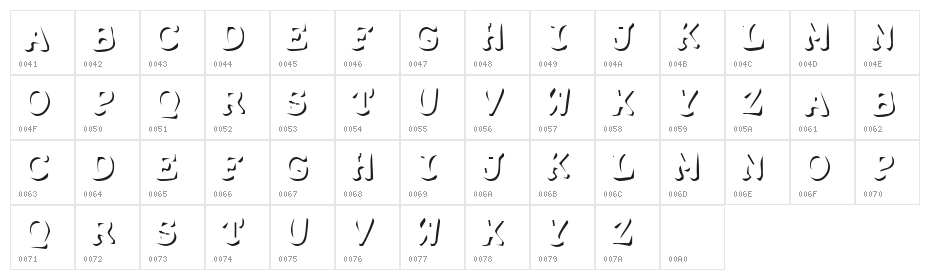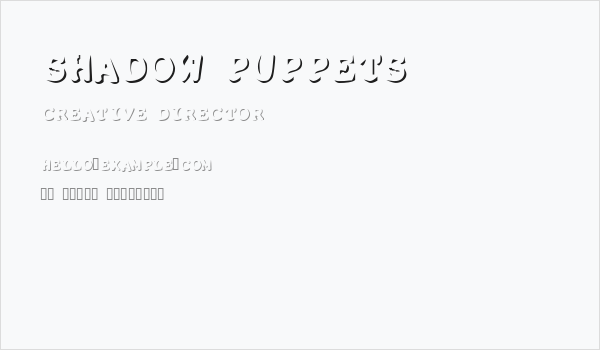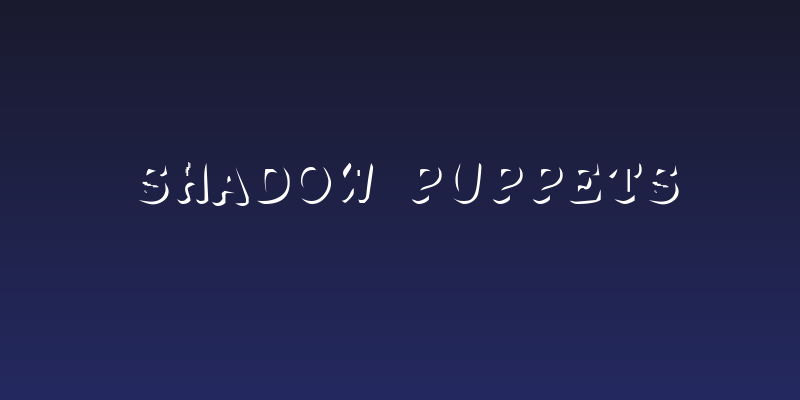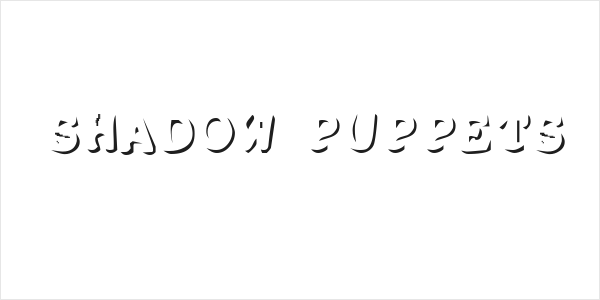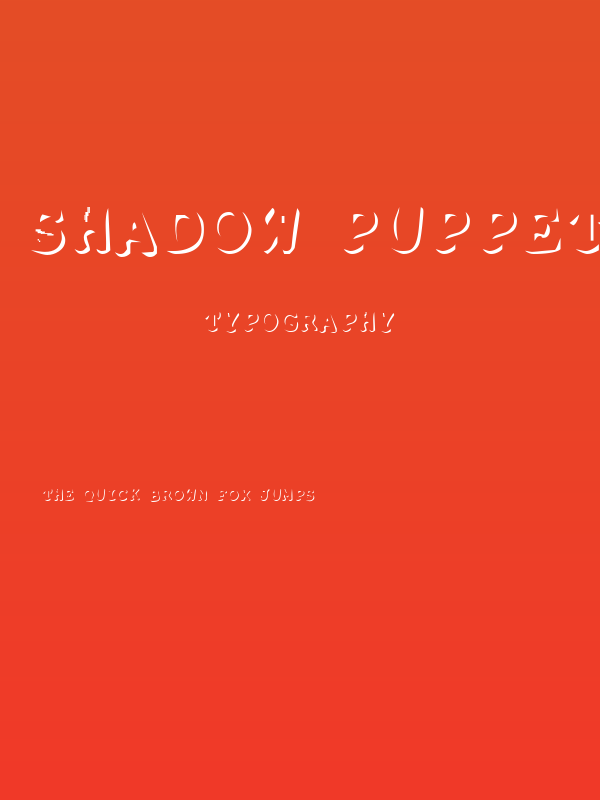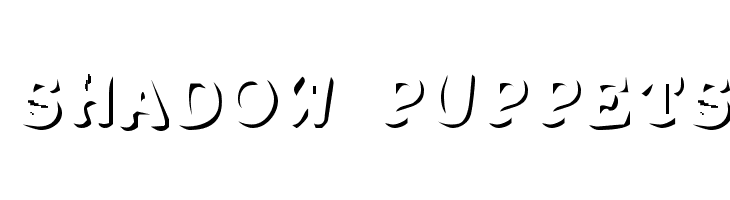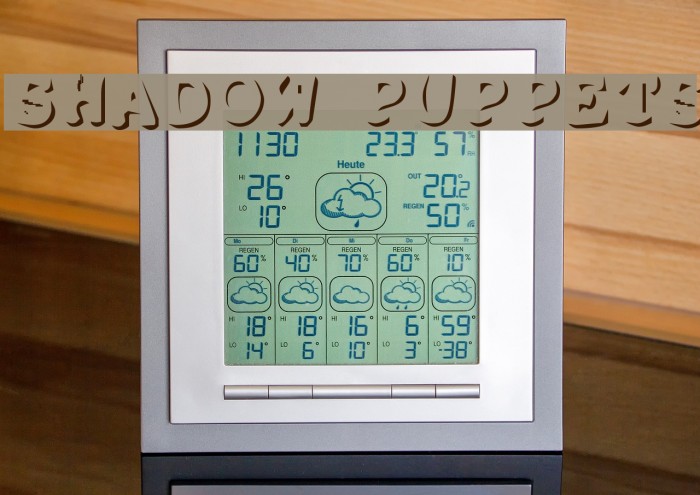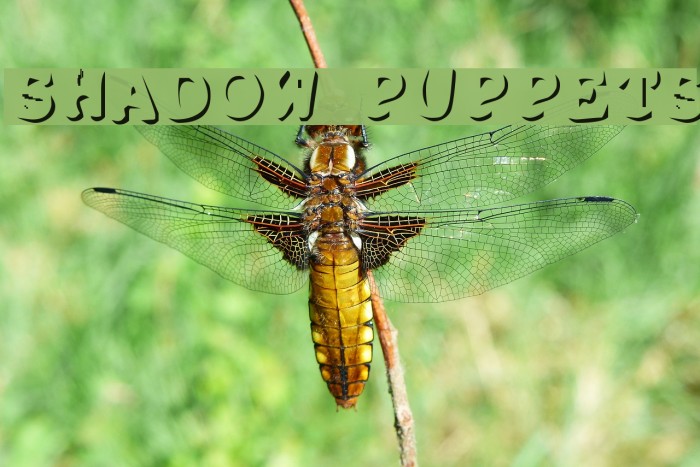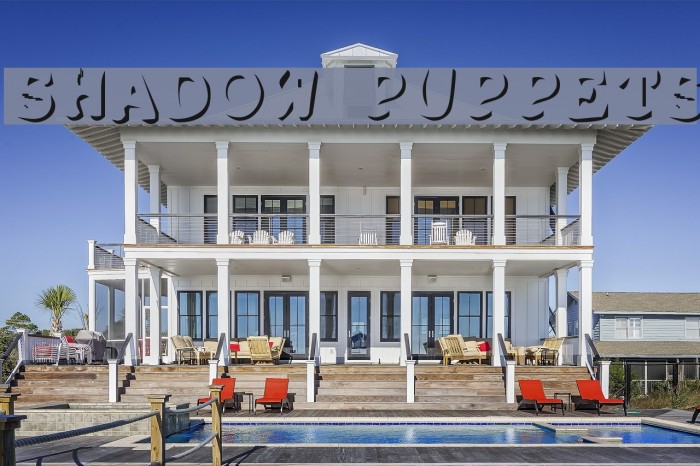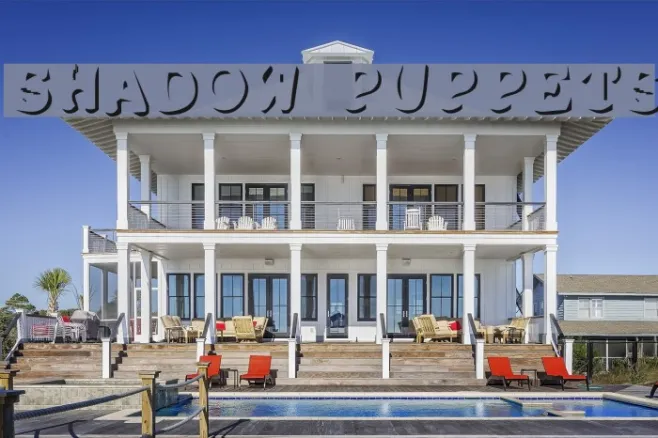
Shadow Puppets Font
Shadow Puppets Description
This font features a unique shadow effect that gives each character a three-dimensional appearance. The letters are bold and have a playful, artistic style, making them stand out with a distinct visual impact. The shadowing is consistent across all characters, adding depth and a sense of movement. The uppercase letters are particularly striking, with sharp angles and clean lines that enhance the shadow effect. The overall design is modern and eye-catching, suitable for creative projects that require a bold statement.
| Proposed Projects | Ideal for posters, headlines, branding, and any project needing a bold, artistic touch. |